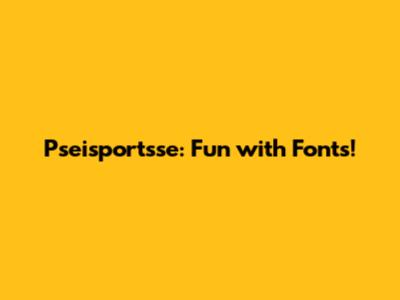
Hey guys! Ever wondered how cool a word can look just by changing its font? Let's dive into the world of typography and see how we can spice up "pseisportsse" using different fonts. Get ready to unleash your inner font fanatic!
Why Fonts Matter?
Fonts, also known as typefaces, are more than just how letters appear on a page or screen. They carry personality, evoke emotions, and set the tone for any text. Think about it: a formal invitation would look totally out of place in Comic Sans, right? Fonts play a crucial role in visual communication, influencing readability, aesthetics, and overall impact. Choosing the right font can make your message pop, while the wrong one can make it fall flat. In the digital age, where content is king, selecting appropriate fonts is essential for grabbing attention and keeping your audience engaged. Whether you're designing a logo, creating a website, or crafting a simple document, understanding the nuances of different fonts can elevate your work from ordinary to extraordinary.
Consider the psychology of fonts. Serif fonts, with their small decorative strokes, often convey a sense of tradition, authority, and elegance. They are commonly used in books, newspapers, and formal documents. Sans-serif fonts, on the other hand, are clean, modern, and minimalist. They are frequently used in digital interfaces, branding materials, and contemporary designs. Script fonts mimic handwriting and add a personal, creative touch, while display fonts are bold, unique, and attention-grabbing, perfect for headlines and posters. Each type of font has its own unique character and purpose, and knowing how to use them effectively is a valuable skill. Furthermore, the readability of a font is paramount. A beautiful font is useless if it strains the eyes or makes the text difficult to decipher. Factors such as font size, line height, and letter spacing all contribute to readability. Experimenting with different fonts and combinations can help you discover the perfect balance between aesthetics and functionality. So, next time you're faced with the task of choosing a font, remember that it's not just about picking something pretty; it's about selecting the right tool to communicate your message effectively.
Pseisportsse in Serif Fonts
Serif fonts are those classic-looking fonts with little feet or strokes at the end of each letter. They often bring a sense of tradition, elegance, and readability, especially in print. Let's see how "pseisportsse" looks in some popular serif fonts.
Times New Roman
Ah, Times New Roman! The quintessential serif font. It’s like the black coffee of fonts—reliable, ubiquitous, and always there when you need it. For "pseisportsse," Times New Roman gives a formal and traditional feel. Imagine seeing "pseisportsse" in Times New Roman on a sophisticated document or a classic book cover. It’s clean, legible, and gets the job done without any fuss. The font is designed for body text, making it highly readable and suitable for extensive content. Its balanced proportions and classic serifs contribute to its timeless appeal, making it a go-to choice for many writers and designers. However, its widespread use can sometimes make it feel a bit generic, so it's essential to consider whether its traditional feel aligns with your desired aesthetic. In the world of fonts, Times New Roman is a workhorse, providing a solid foundation for any text-based project. Whether you're writing a formal report, designing a book, or simply need a reliable font for everyday use, Times New Roman is a dependable choice that never goes out of style. It's a classic for a reason, guys! It ensures that "pseisportsse" looks professional and easy to read, emphasizing clarity and tradition.
Garamond
Garamond is another elegant serif font, but with a bit more flair than Times New Roman. It has a refined and slightly more artistic look. When "pseisportsse" is rendered in Garamond, it exudes sophistication and a touch of old-world charm. Think of it as the font you’d use for a high-end brand or a literary masterpiece. The delicate serifs and graceful curves of Garamond give it a unique character that sets it apart from more utilitarian fonts. Its historical roots add to its appeal, as it has been used in printing for centuries, giving it a sense of heritage and quality. Using Garamond for "pseisportsse" suggests a sense of refinement and attention to detail, making it an excellent choice for projects that aim to convey elegance and sophistication. It’s like dressing "pseisportsse" in a tuxedo! It brings a classic and polished feel, perfect for adding a touch of sophistication and artistry.
Pseisportsse in Sans-Serif Fonts
Sans-serif fonts are the modern, clean-cut cousins of serif fonts. They lack the little decorative strokes and tend to look more minimalist and contemporary. Let’s see how "pseisportsse" holds up in some popular sans-serif fonts.
Arial
Arial is the Helvetica of the Microsoft world. It’s clean, simple, and highly legible. In Arial, "pseisportsse" appears straightforward and modern. It’s a great choice for digital displays and general-purpose use. Arial’s neutrality makes it a versatile font that works well in a variety of contexts, from websites to presentations. Its clean lines and uniform strokes ensure readability, even at small sizes, making it a practical choice for body text and headings alike. While some criticize Arial for being too plain, its simplicity is also its strength, as it avoids distracting the reader with unnecessary embellishments. Arial's universal availability ensures that your text will display correctly on virtually any device, making it a safe and reliable option for online communication. Using Arial for "pseisportsse" gives it a contemporary feel, suitable for modern designs and digital platforms. It’s like the reliable everyday wear of fonts—always a good choice! It offers a clean, uncluttered look, ensuring that "pseisportsse" remains easily readable and contemporary.
Helvetica
Helvetica is arguably the most famous sans-serif font of all time. Known for its neutrality and clarity, it’s a favorite among designers worldwide. "Pseisportsse" in Helvetica looks incredibly clean and modern. It’s perfect for logos, websites, and anything that needs a sleek, contemporary feel. The Swiss design principles behind Helvetica emphasize simplicity and functionality, making it a highly versatile font that works well in a wide range of applications. Its balanced proportions and consistent strokes contribute to its timeless appeal, making it a go-to choice for designers seeking a clean and professional look. Helvetica’s neutrality allows the content to take center stage, ensuring that the message is clear and unobstructed. Whether you're designing a corporate identity, creating a website, or crafting a marketing campaign, Helvetica provides a solid foundation for visual communication. It's a classic choice that continues to influence modern design. Presenting "pseisportsse" in Helvetica gives it a minimalist and sophisticated touch, ideal for conveying a modern and professional image. It’s like the little black dress of fonts—always in style! It provides a sleek, uncluttered appearance, perfect for emphasizing modernity and clarity.
Pseisportsse in Script Fonts
Script fonts mimic handwriting and can add a touch of elegance, personality, or whimsy. They’re great for adding flair, but be careful not to overuse them, as they can sometimes be harder to read.
Brush Script
Brush Script is a classic script font that looks like it was painted with a brush. It has a casual, flowing feel. When "pseisportsse" is in Brush Script, it gets a playful and informal vibe. This font is great for invitations, posters, or anything that needs a personal touch. The dynamic strokes and calligraphic style of Brush Script give it a unique character that stands out from more conventional fonts. Its hand-drawn feel adds a personal touch, making it ideal for projects that aim to convey warmth and creativity. While Brush Script can be eye-catching, it's essential to use it sparingly, as its decorative style can sometimes reduce readability, especially in large blocks of text. Using Brush Script for "pseisportsse" gives it a casual and artistic appearance, suitable for creative projects and informal settings. It’s like giving "pseisportsse" a fun, handwritten makeover! It brings a personal and expressive feel, perfect for adding a touch of whimsy and charm.
Lucida Calligraphy
Lucida Calligraphy is a more refined script font, with elegant loops and flourishes. It’s more formal than Brush Script but still has a handwritten feel. "Pseisportsse" in Lucida Calligraphy looks sophisticated and graceful, perfect for wedding invitations or elegant announcements. The delicate strokes and ornate details of Lucida Calligraphy give it a refined and sophisticated appearance. Its calligraphic style evokes a sense of tradition and artistry, making it an excellent choice for projects that aim to convey elegance and grace. While Lucida Calligraphy can add a touch of sophistication, it's essential to use it judiciously, as its intricate details can sometimes reduce readability, especially at small sizes. Using Lucida Calligraphy for "pseisportsse" gives it an elegant and refined touch, ideal for formal events and sophisticated designs. It’s like dressing "pseisportsse" in a fancy gown! It brings a graceful and stylish feel, perfect for emphasizing elegance and sophistication.